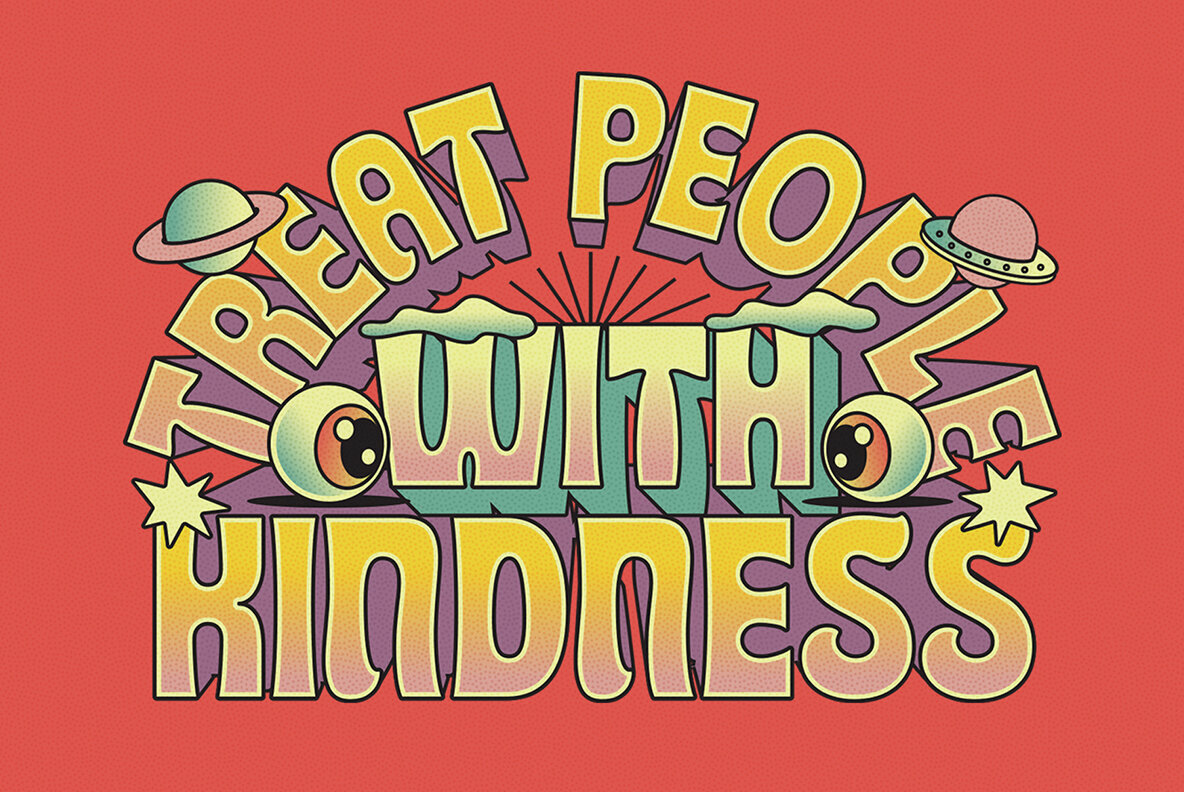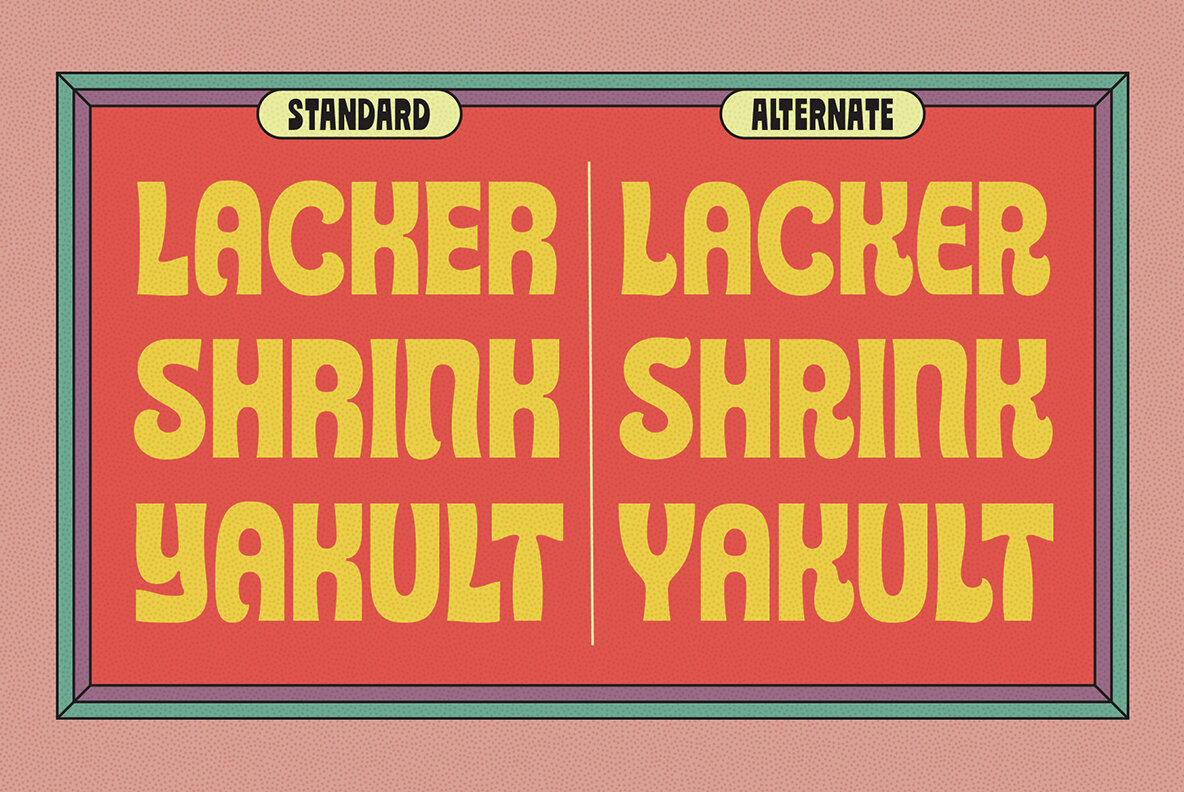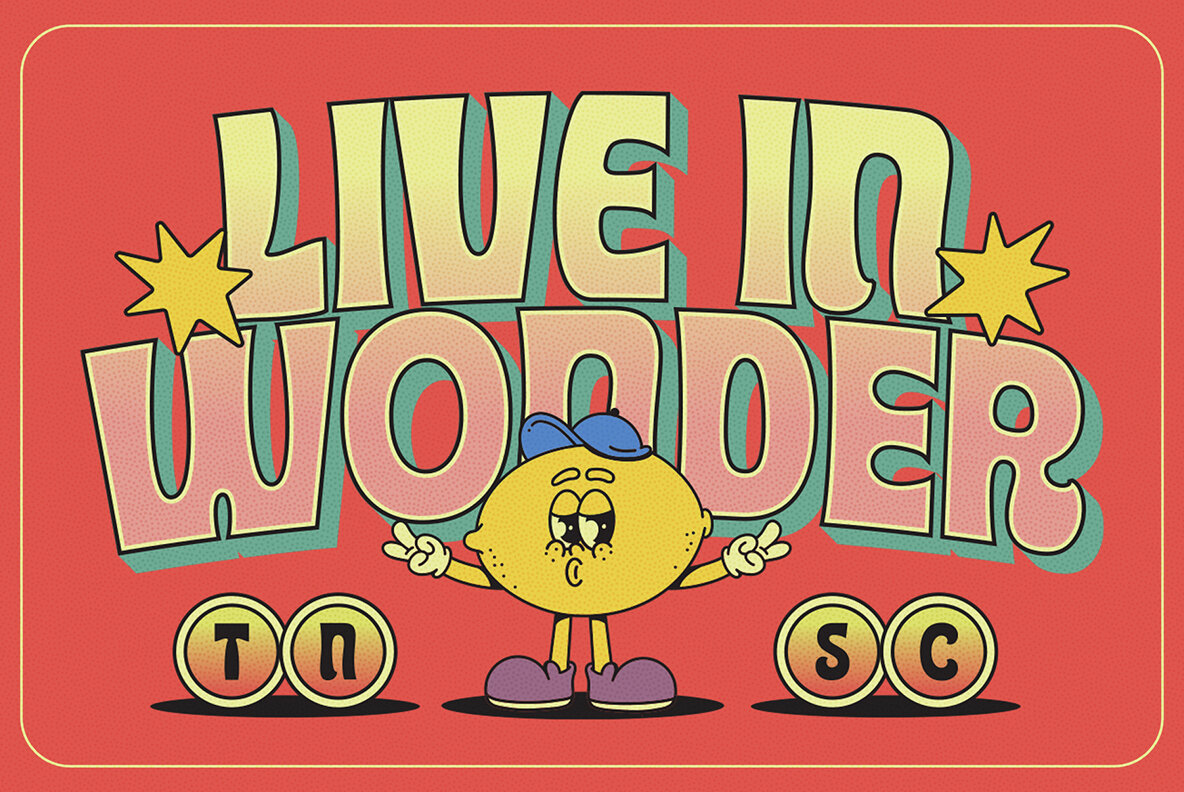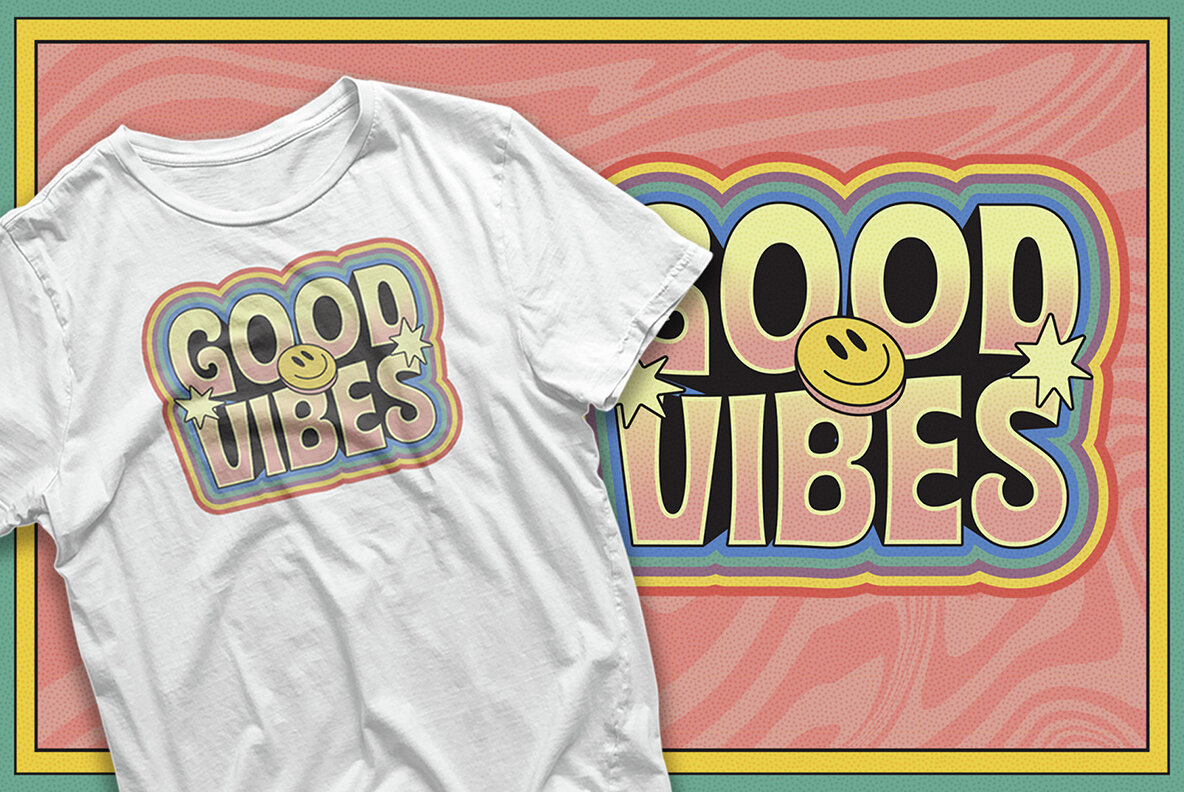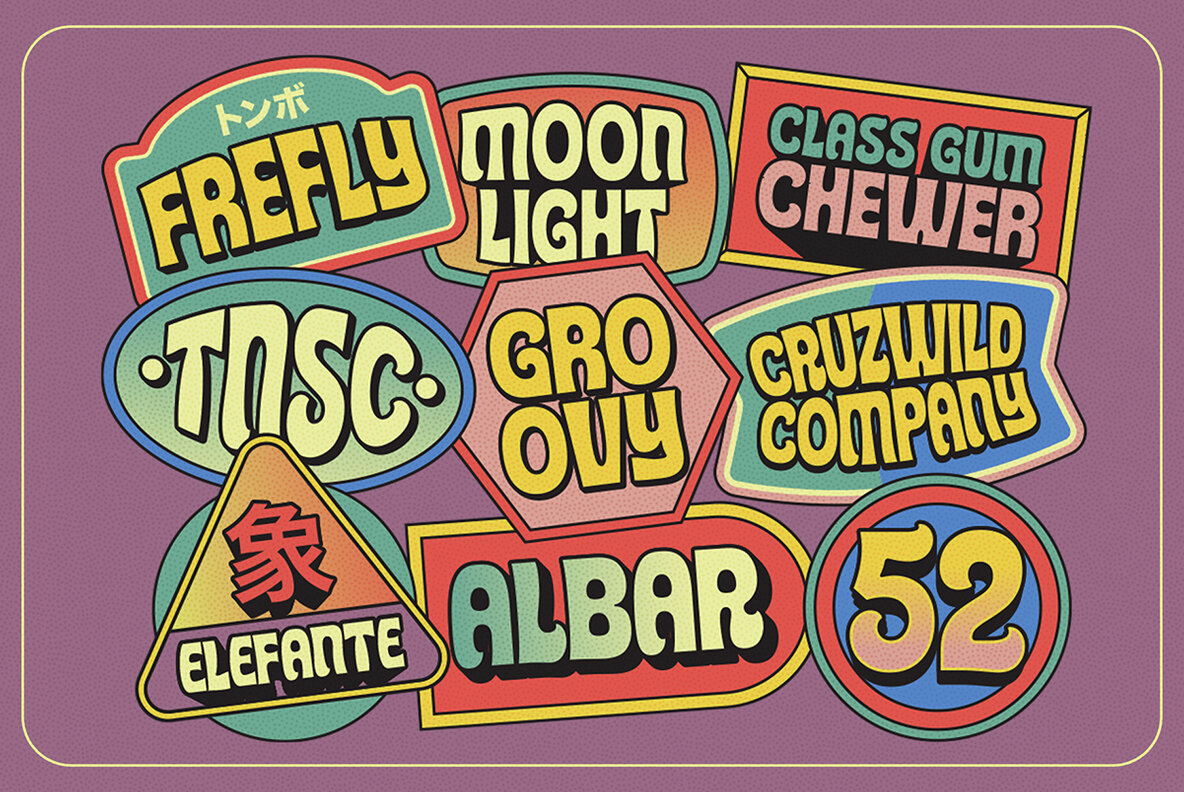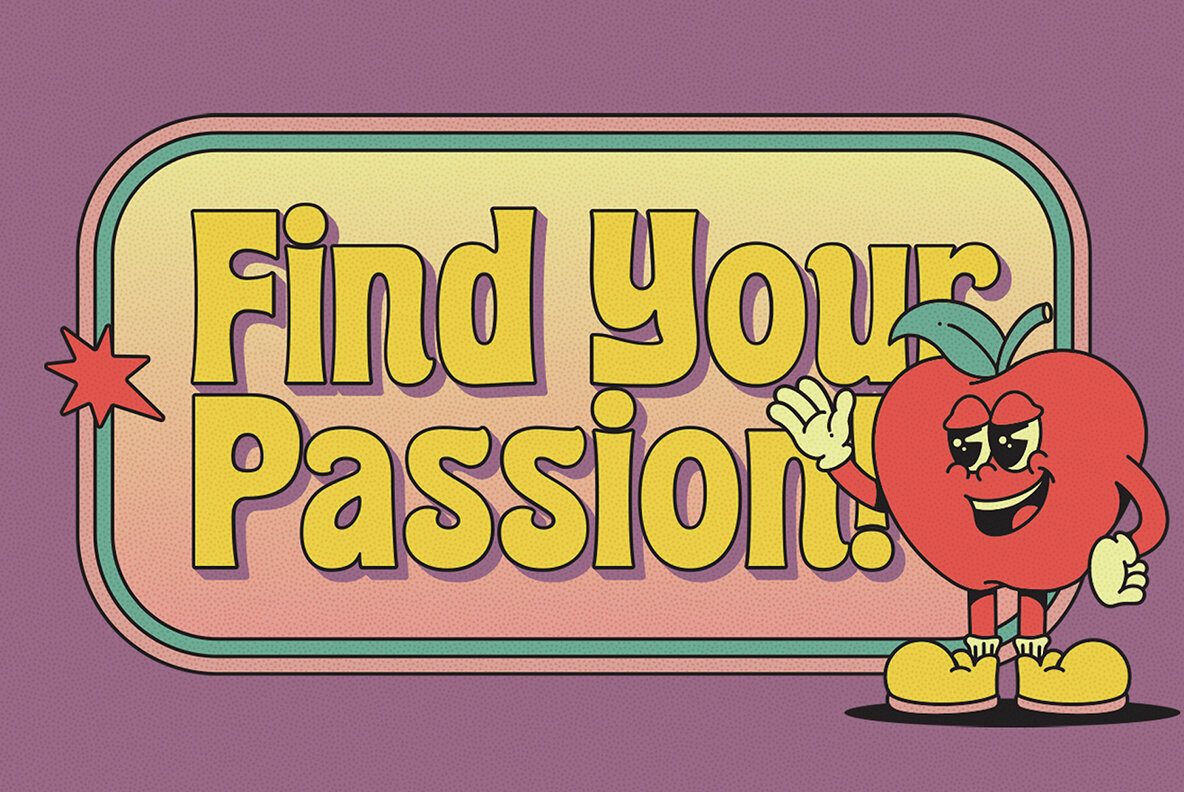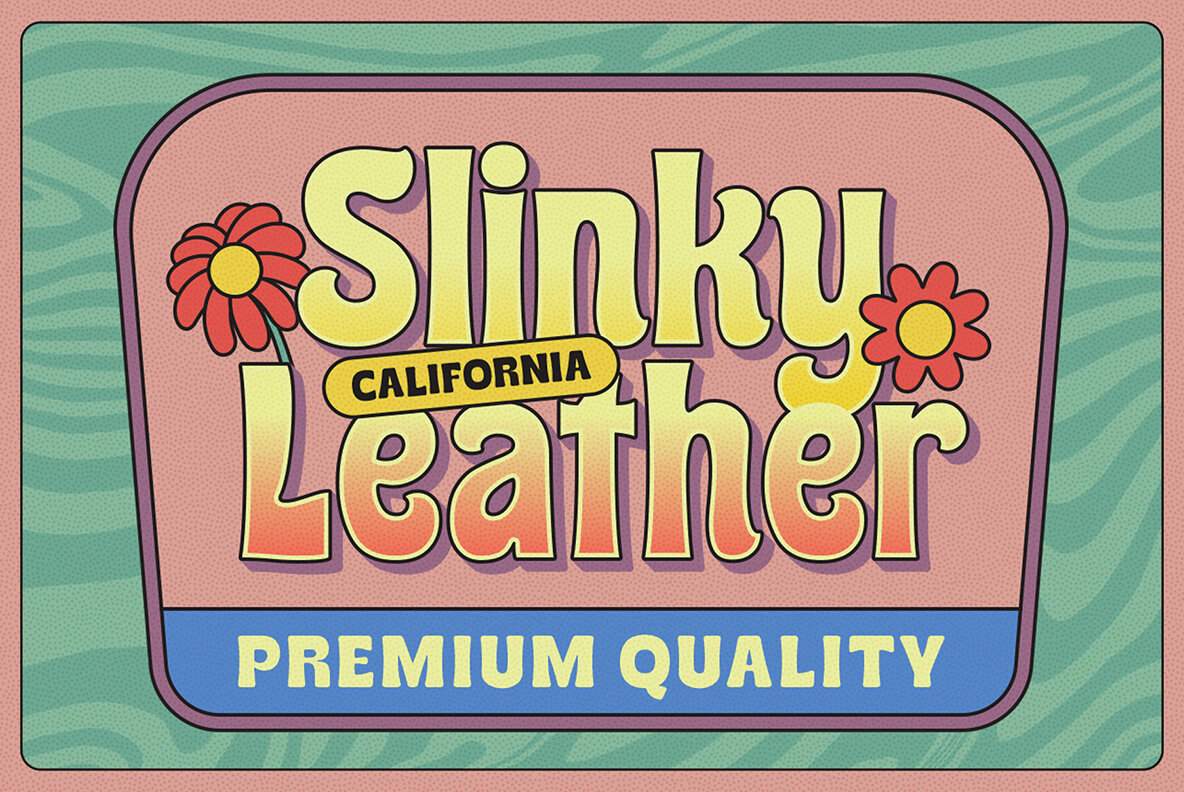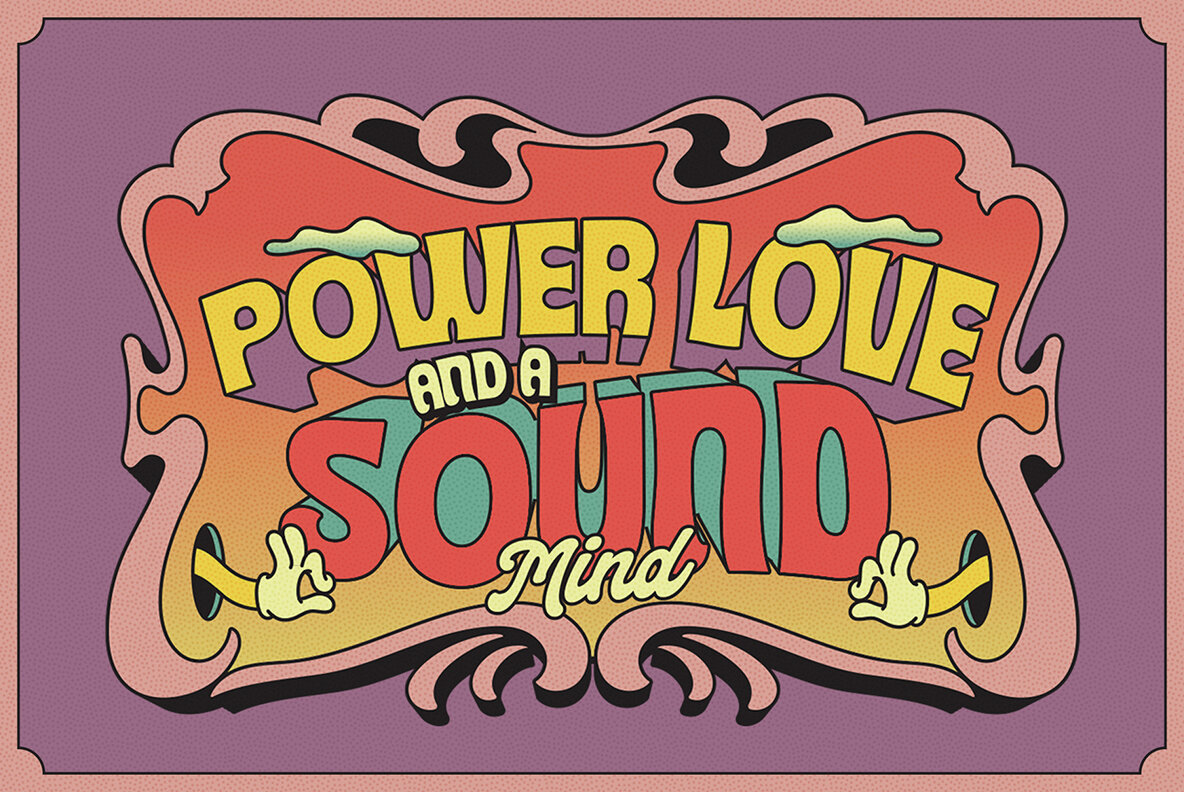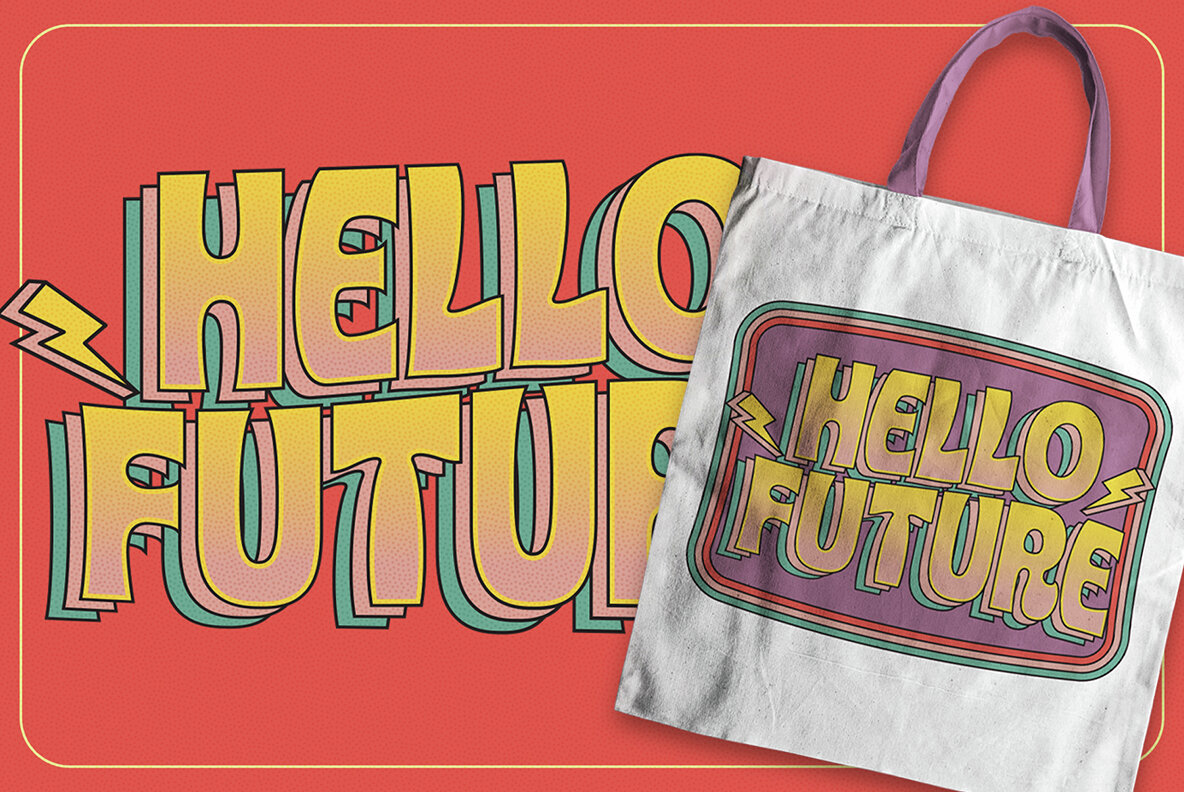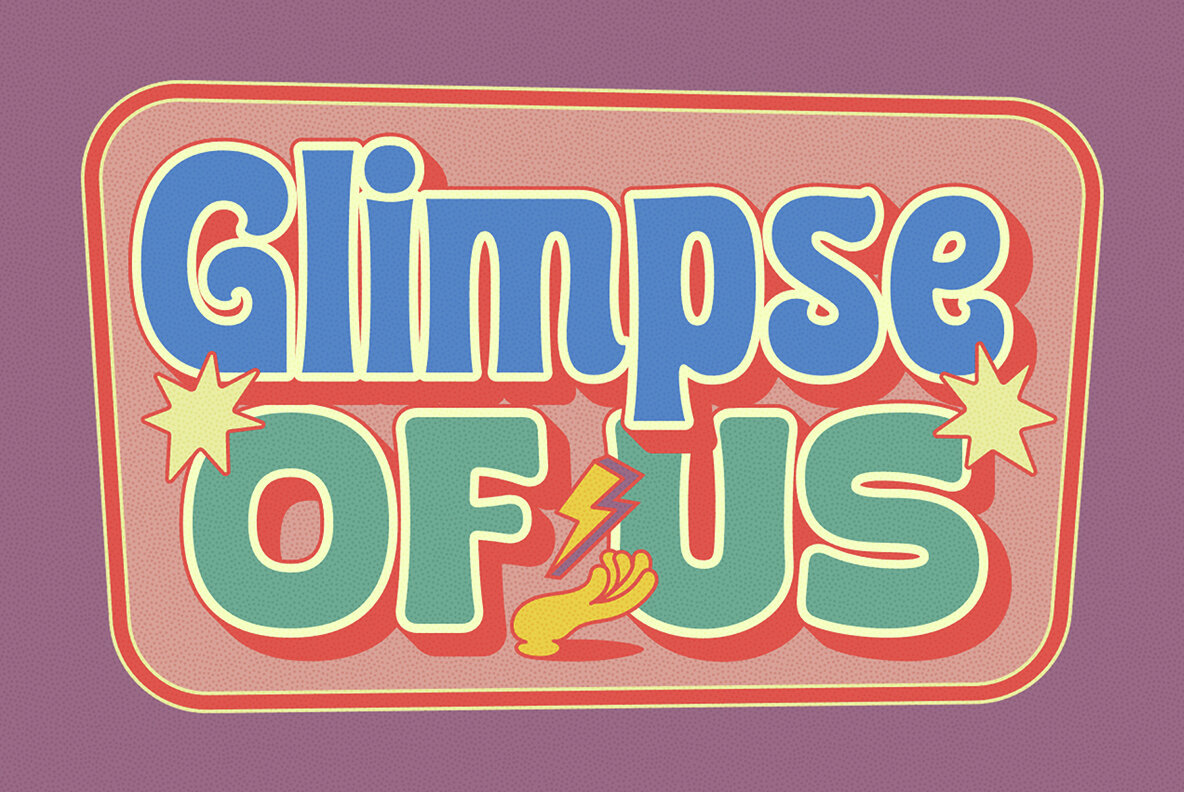
TNSC Gizard is a font that dances on the edge of reality and fantasy. Inspired by the psychedelic art of the ’60s and ’70s, Gizard brings an otherworldly flair to your designs with its swirling, fluid forms and vibrant personality. Whether you're crafting a trippy poster, a mind-bending album cover, or an adventurous brand identity, Gizard's hypnotic curves and cosmic energy will captivate and inspire.